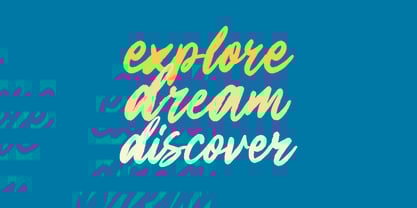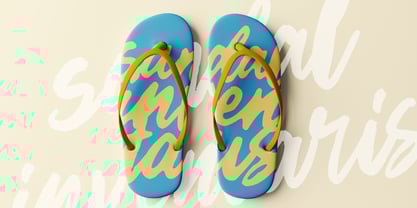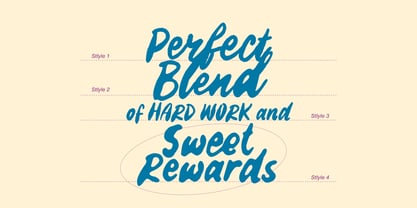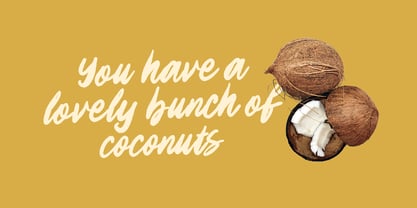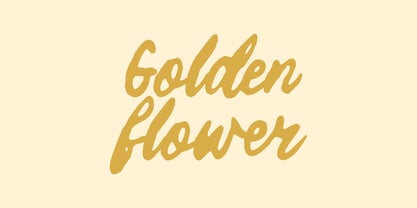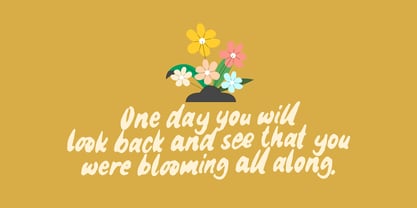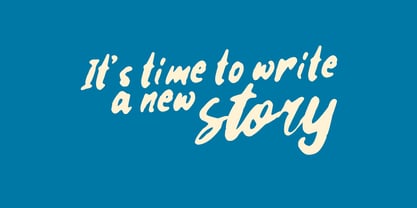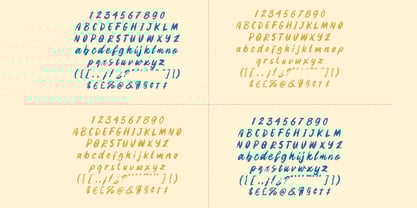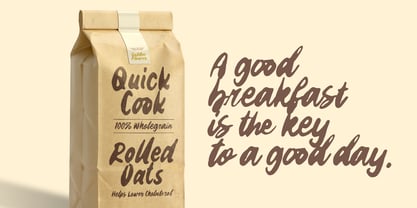
Golden Flower
by Enbe Studio
The Golden Flower Font Family was designed by Winarno, Eko Kurniawan and published by Enbe Studio. Golden Flower contains 4 styles and family package options. More about this family
This font is the perfect blend of boldness and uniqueness. With its bold handwriting and irregular strokes, it offers a dynamic and characterful appearance. Each letter is designed with a rough texture and different proportions, creating a lively and energetic impression.
This font is perfect for creative projects that want to stand out and leave a strong impression. Its use is ideal in the design of posters, logos, product packaging and promotional materials that require a bold and aesthetic appearance. Golden Flower adds an artistic and modern touch to designs, making every project feel unique and unforgettable.
With its flexibility, this font is able to adapt to various design styles, be it vintage, urban or contemporary themes. The irregular touch and uniqueness of each letter make this font a great choice for those who want to express boundless creativity.
Designers: Winarno, Eko Kurniawan
Foundry: Enbe Studio